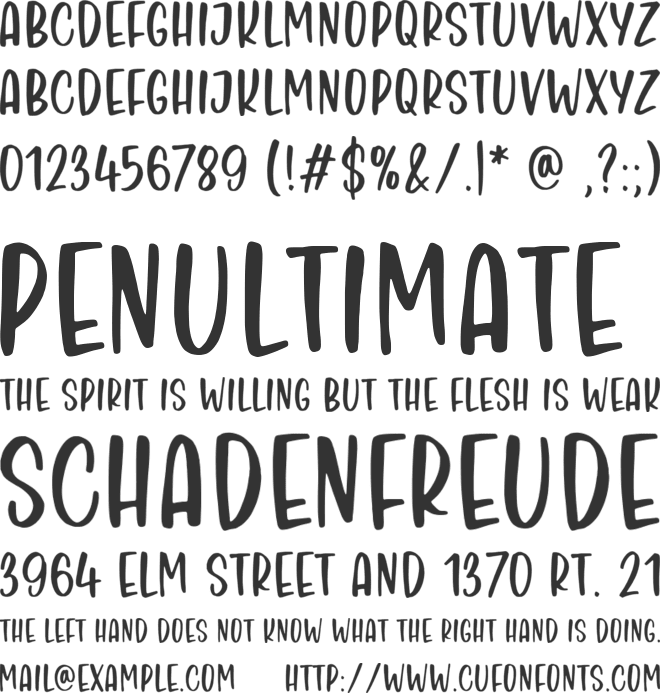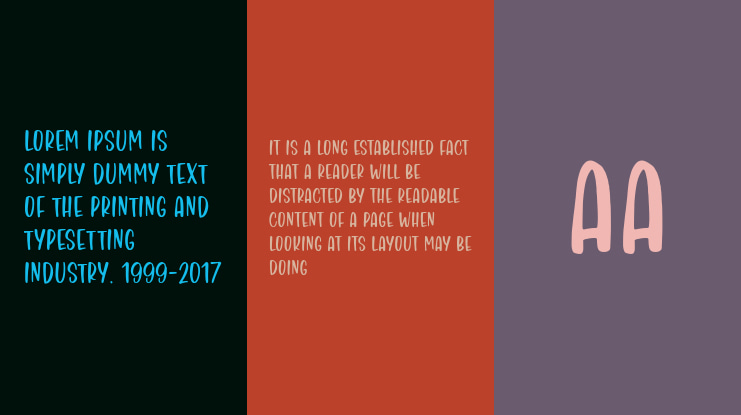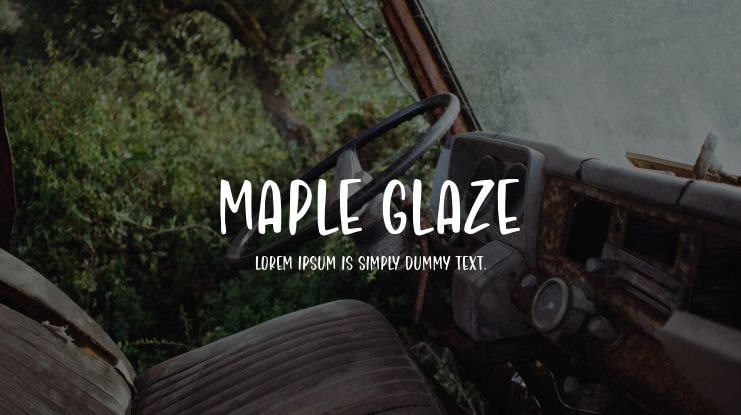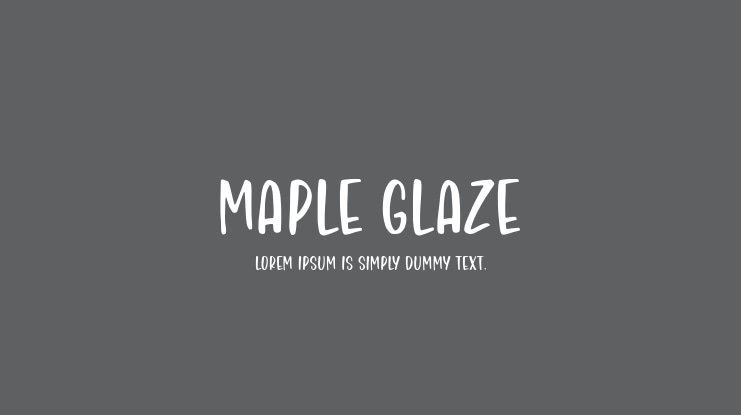
Maple Glaze Font
Welcome to Balpirick Studio's latest release - Maple Glaze! This font showcases exquisite hand-drawn lettering that is perfect for a variety of creative projects. Whether you are designing crafts, digital artwork, presentations, or even creating personalized greeting cards, this font is guaranteed to become your go-to favorite font for any occasion.
Maple Glaze exclusively features uppercase letters, giving your designs a bold and impactful look. It is available in TTF, OTF, and WOFF formats, ensuring compatibility across various platforms. Additionally, this font offers multilingual support, allowing you to express your creativity in different languages.